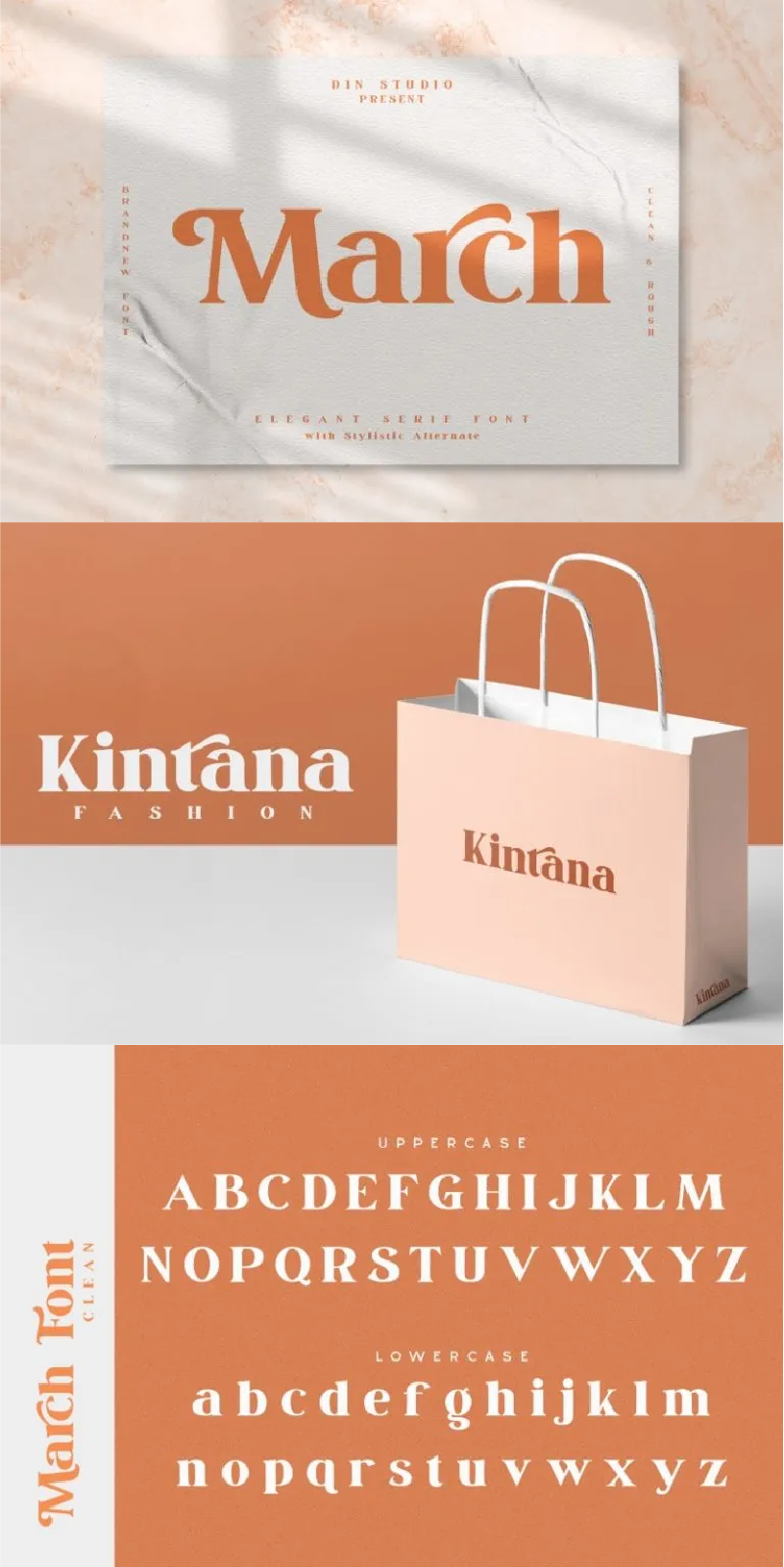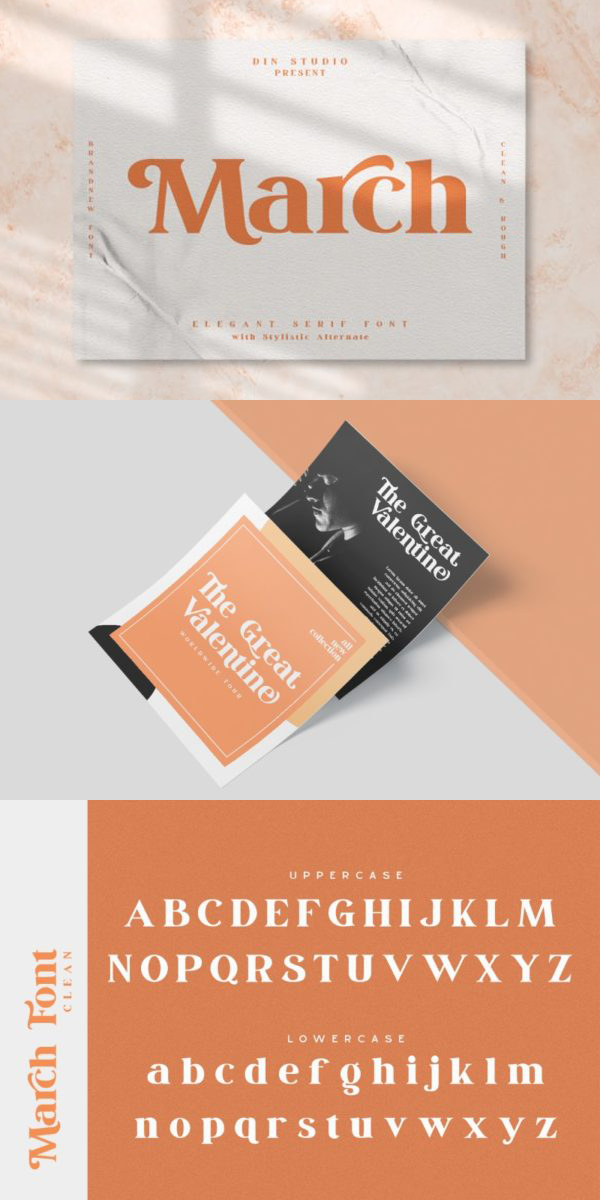
March Font
About March
Let’s welcome the March font. It is a modern and clean display (Serif) font created by our talented font designers. The typeface style will make your designs more beautiful and inspiring. This font will be suitable for any projects, like brandings, printed templates, logos, etc. which is also available in a rough version.